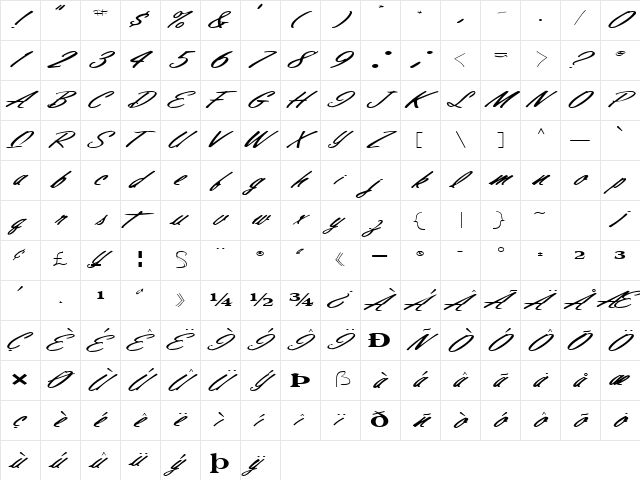
StatelyTypeStyle77 Regular
Design Context for StatelyTypeStyle77
StatelyTypeStyle77 is a composed and adaptable typeface that performs quietly and consistently across a wide range of design contexts.